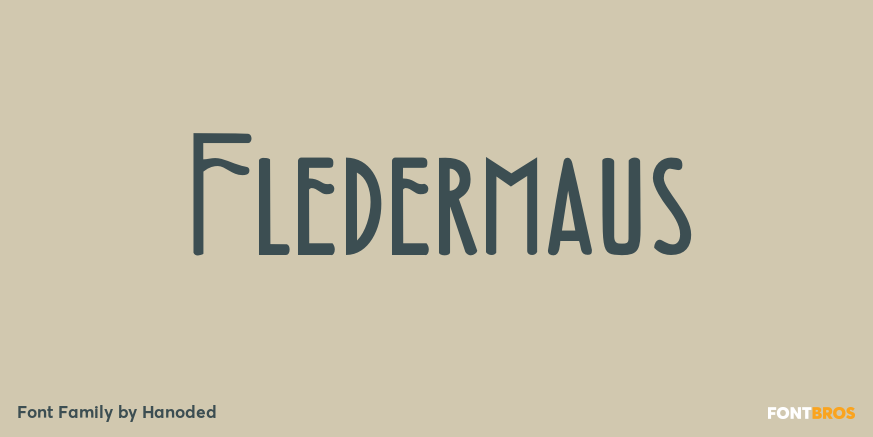
Fledermaus
About Fledermaus
Fledermaus (meaning ?Bat? in German) was a cabaret theater from Vienna. The original Jugendstil decor was designed by Josef Hoffman and several posters, advertising performances, were designed by other members of the Vienna Workshop. Fledermaus font was…